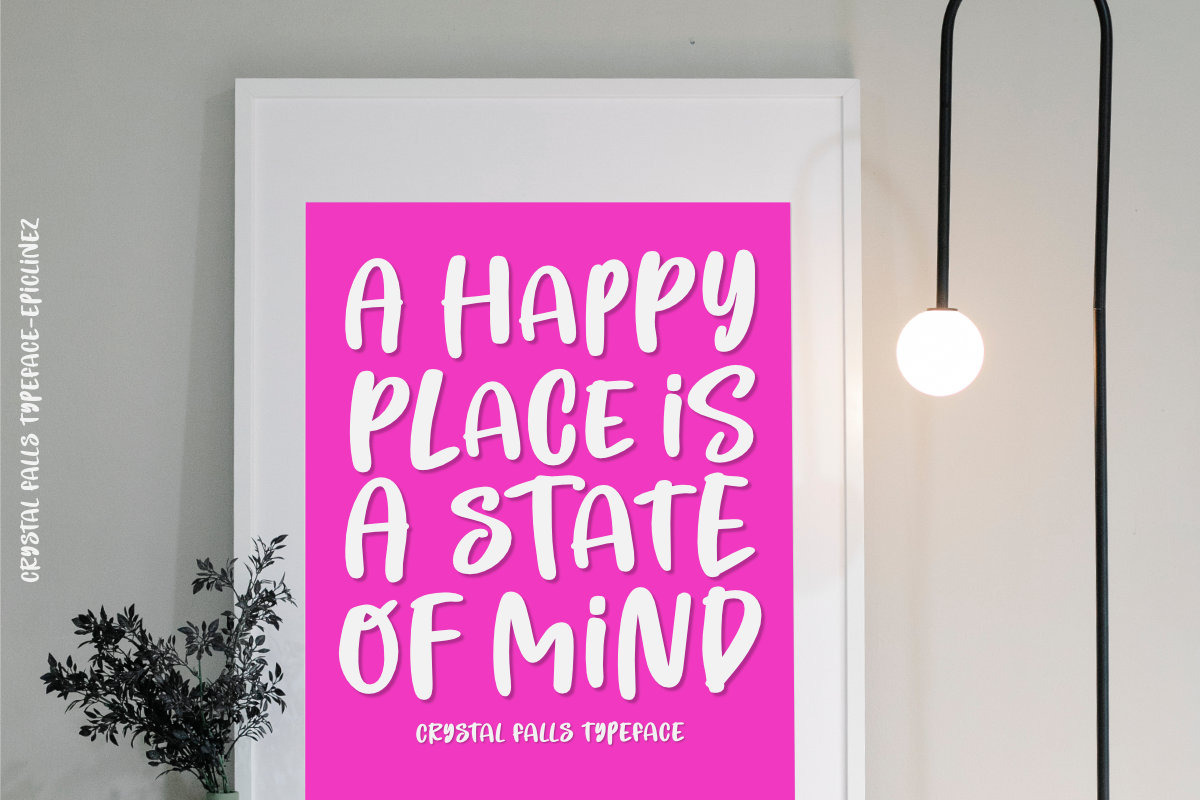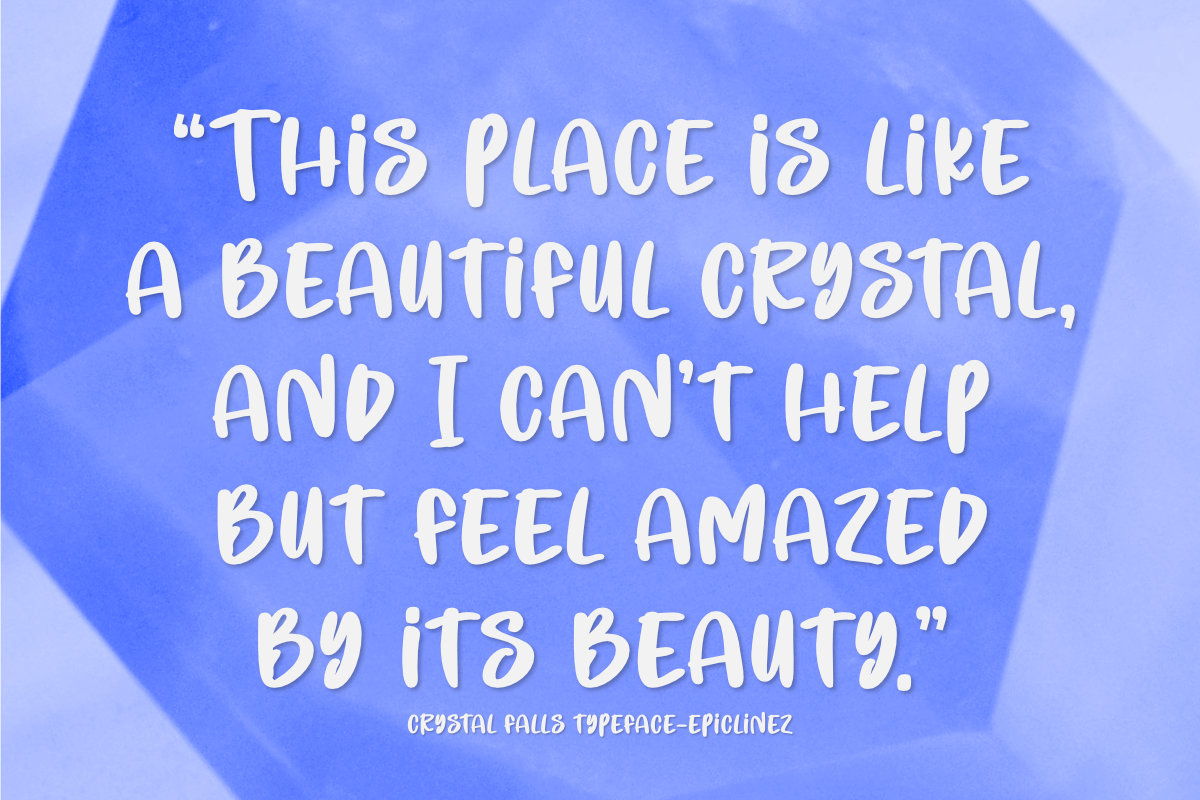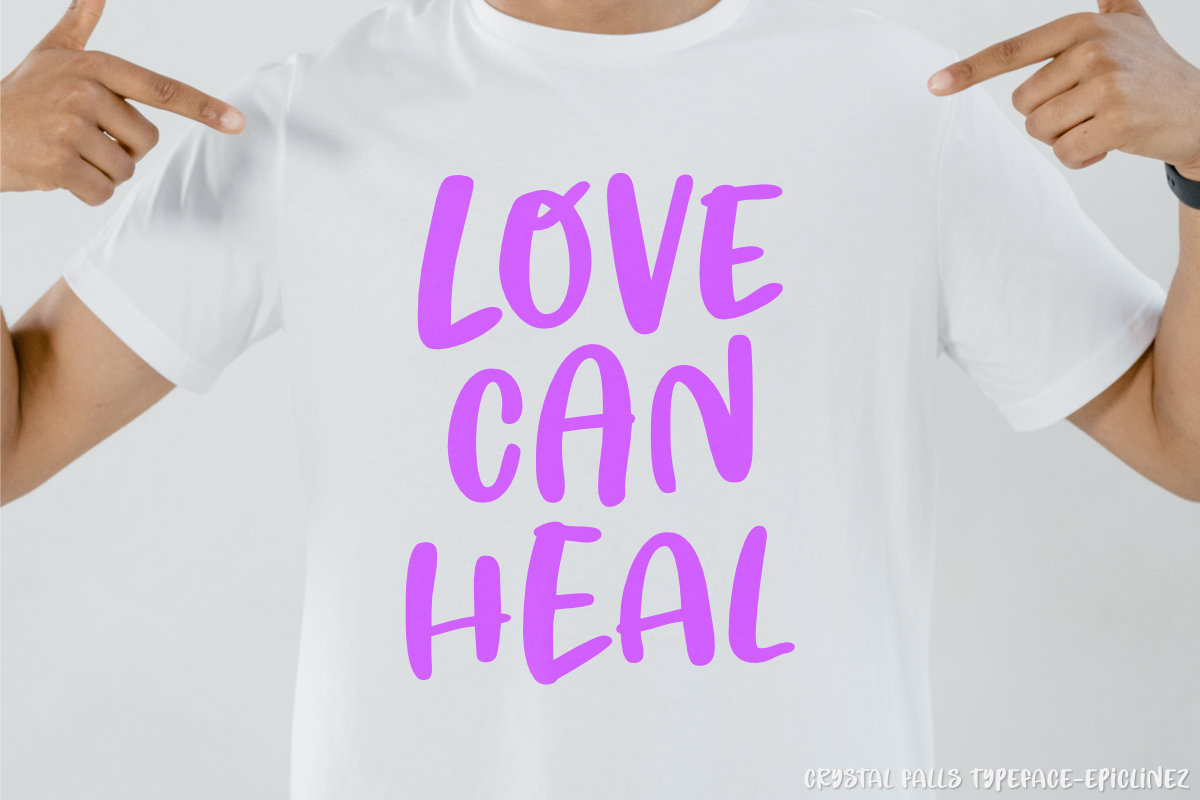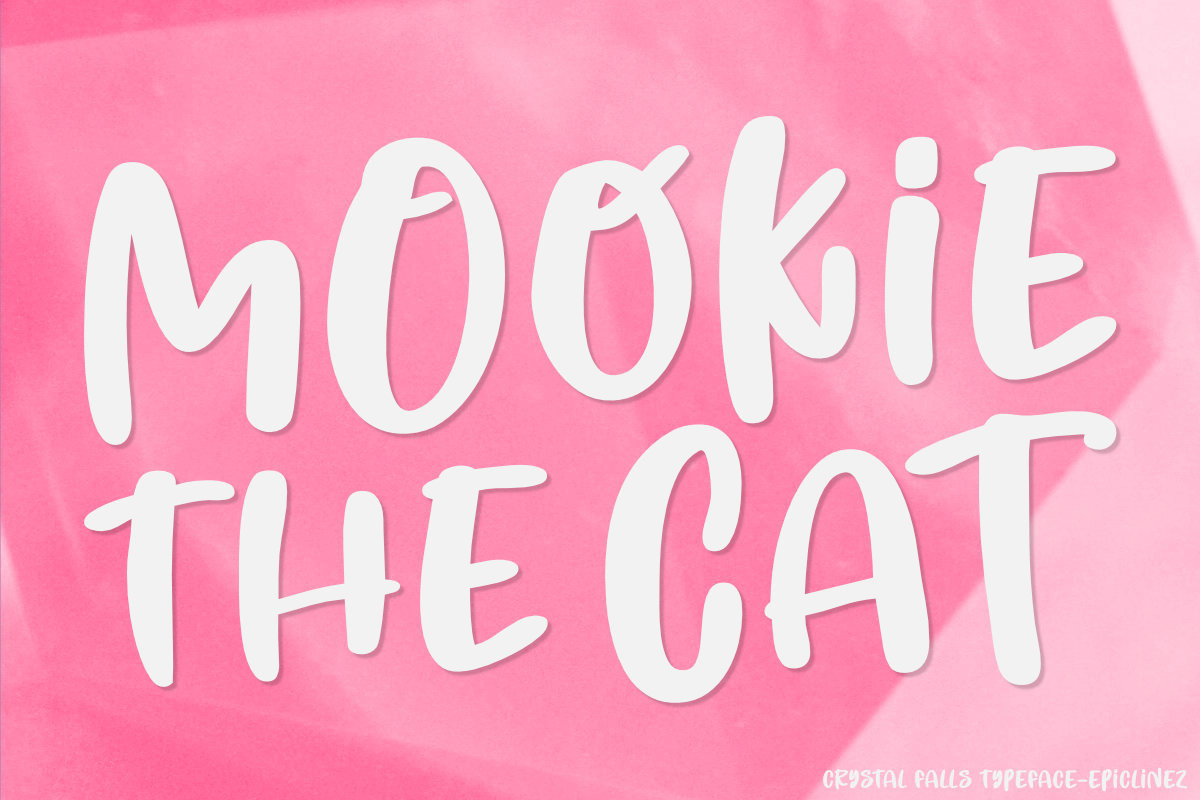
Crystal Falls
If you're into that bold, fun, modern look, then Crystal Falls is the right choice for you. This versatile font is great for headlines, apparel, posters, logos, and product packaging, due to its simplicity and playfulness. Get creative with this compact gem of font and let your imagination run wild!